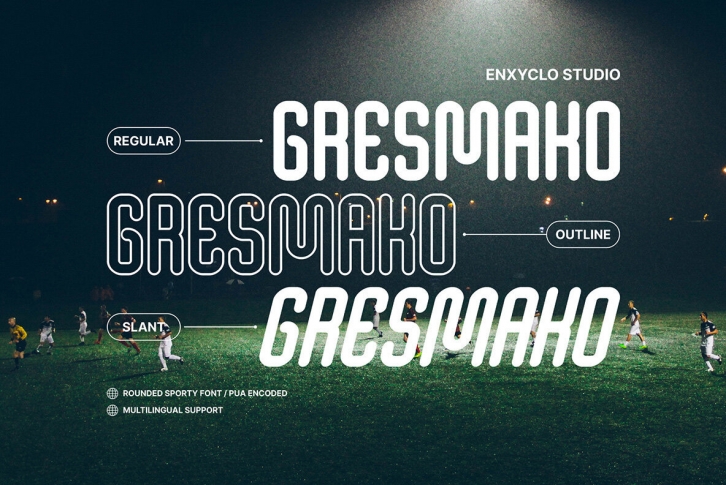
Gresmako is a rounded sporty font. It was purposely crafted to be used in large point sizes, although it doesn't lose its magic in small point sizes. With this rounded sporty typeface, you can be even more expressive in your design projects. It is perfect for headline, billboard, magazines, website, titles, poster, branding, and logos. With this beautiful font, absolutely you can make your project stand out from the rest. See the previews above to get some inspiration on how to use them.